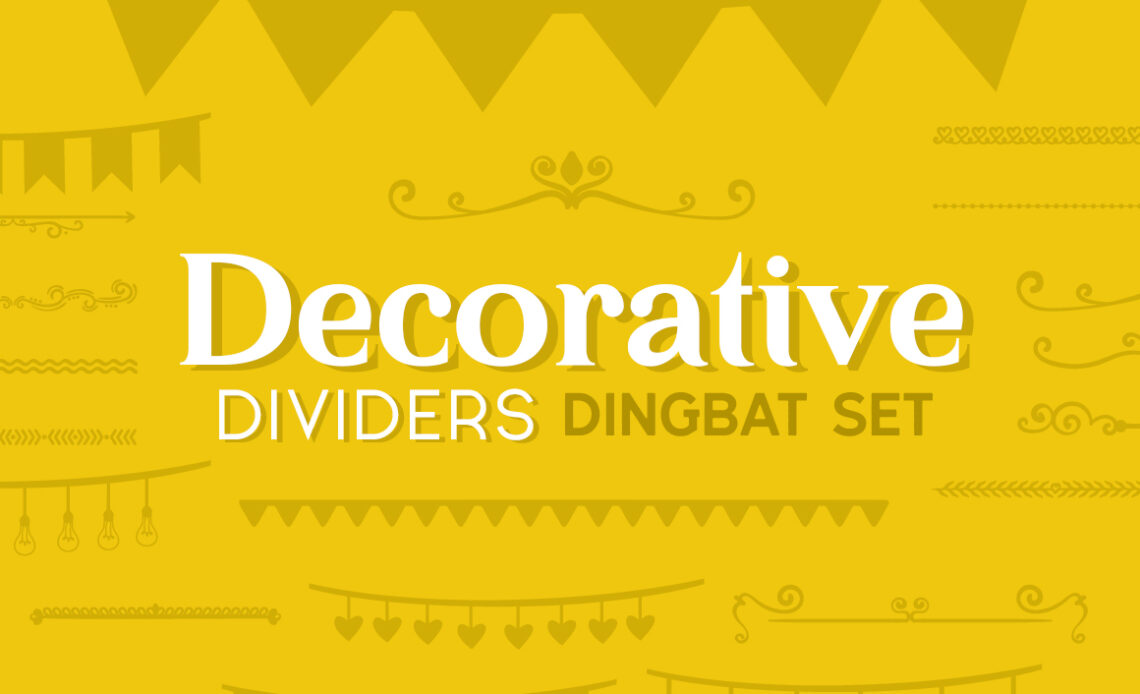
Introducing the Decorative Dividers Dingbat Set Font, a captivating collection of 48 stunning dividers designed to elevate your creative projects to new heights! Created by Creative Fabrica Fonts, this dingbat font family is here to add a touch of magic and charm to your designs.
Are you tired of the same old boring dividers? Look no further! Our Decorative Dividers Dingbat Set Font offers a mesmerizing array of unique and eye-catching dividers that will instantly captivate your audience. From delicate swirls to intricate patterns, this collection has it all.
Unleash your creativity with these versatile dividers that can be used in a multitude of ways. Whether you're designing a wedding invitation, creating a captivating logo, or simply adding a touch of elegance to your social media graphics, these dividers will do the trick. Let your imagination run wild as you explore the endless possibilities!
But that's not all - our Decorative Dividers Dingbat Set Font is not just visually appealing, it's also incredibly easy to use. With a simple click, you can effortlessly insert these dividers into your design software and watch your creations come to life. No more spending hours trying to find the perfect divider - we've got you covered!
But don't just take our word for it. Experience the magic for yourself and see how these dividers can transform your designs from ordinary to extraordinary. Stand out from the crowd and leave a lasting impression on your audience with the Decorative Dividers Dingbat Set Font.